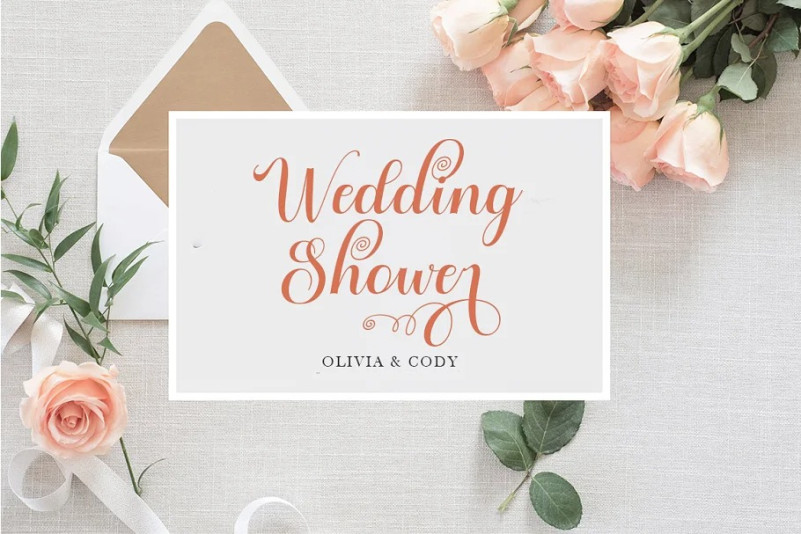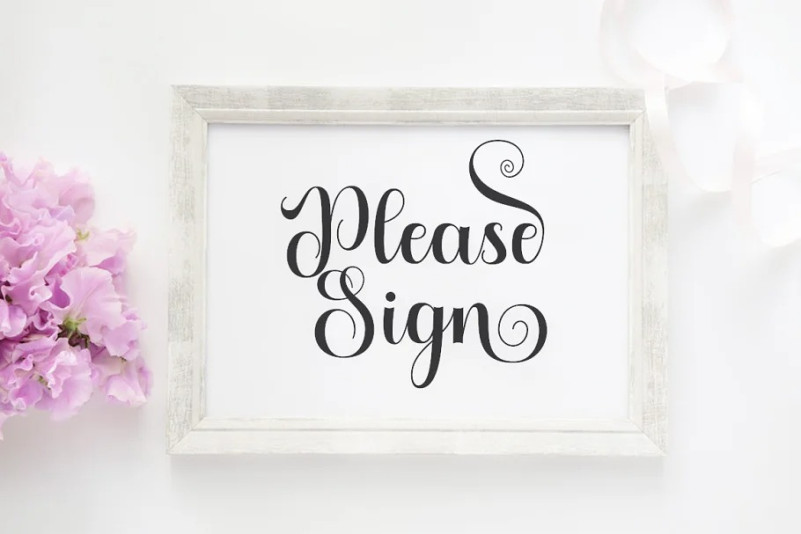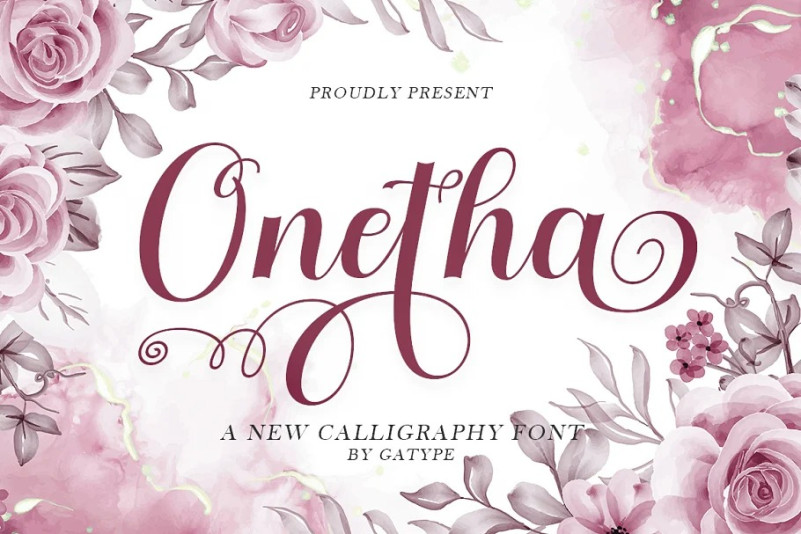
Onetha Font
Onetha Calligraphy Font is elegant calligraphy font. This font is casual and pretty with swashes. Can use for various purposes such as logos, product packaging, wedding invitations, branding, headlines, signage, labels, signature, book covers, posters, quotes, and more.